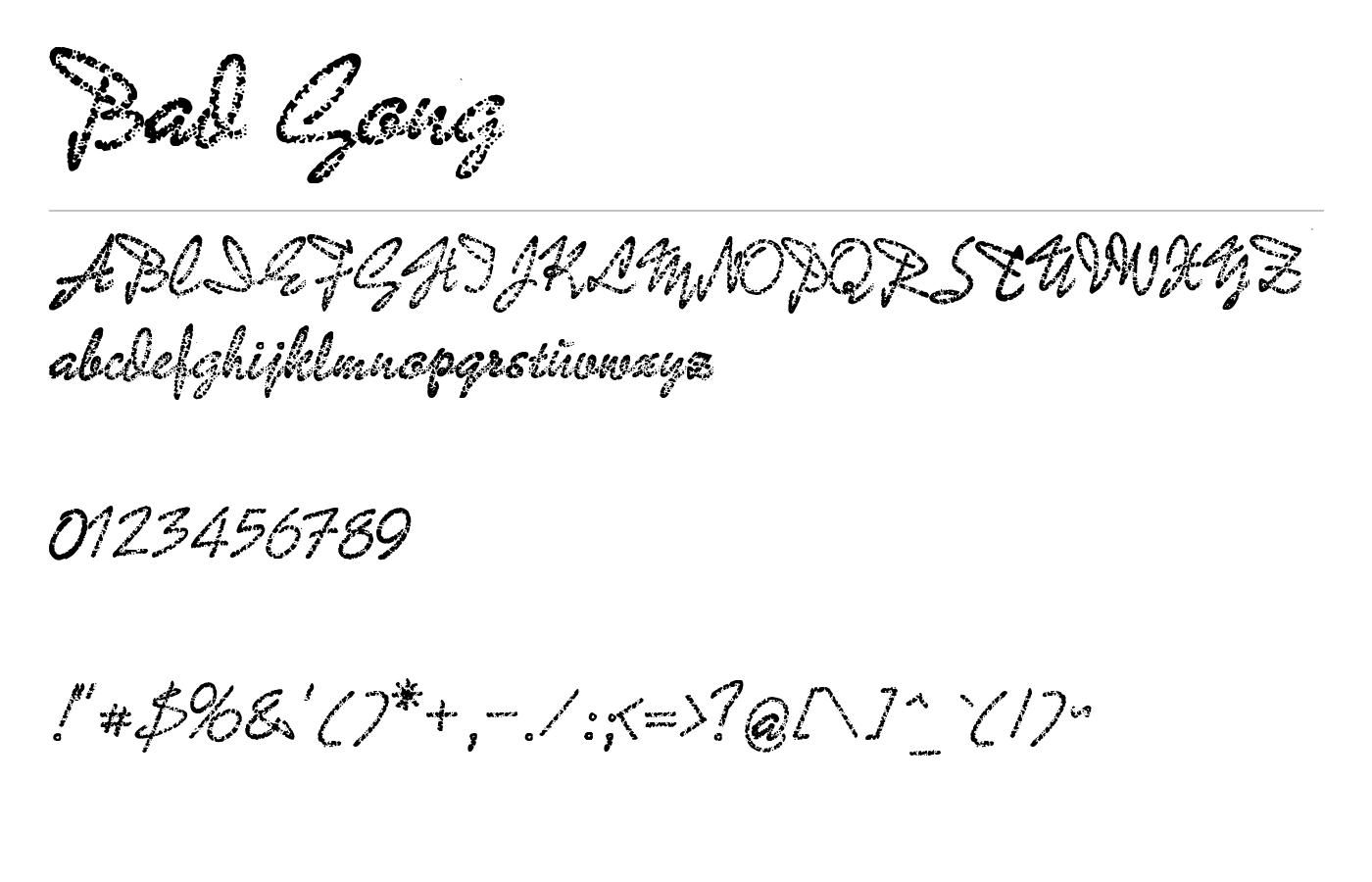
Bad Gong is a lively and textured script font that gives the impression of rough, hand-painted brush strokes with an irregular, dotted pattern throughout. Its casual yet dynamic style is perfect for adding an artistic, edgy feel to creative projects like posters, logos, and packaging where a unique, handcrafted look is desired. This font works best in display settings, bringing character and energy without sacrificing readability.
Bad Gong Font
About Bad Gong Font
| Font family | Bad Gong Font |
| Release date | 2014-01-06 |
| Designer | Peter Wiegel |